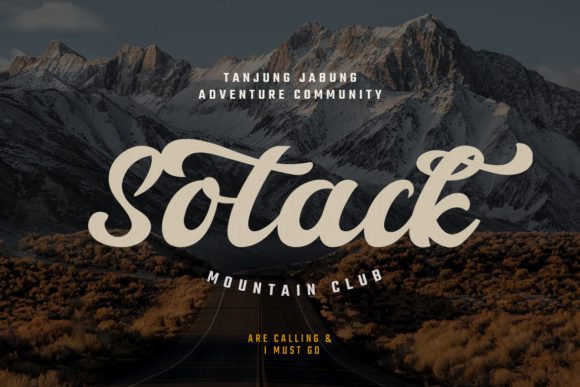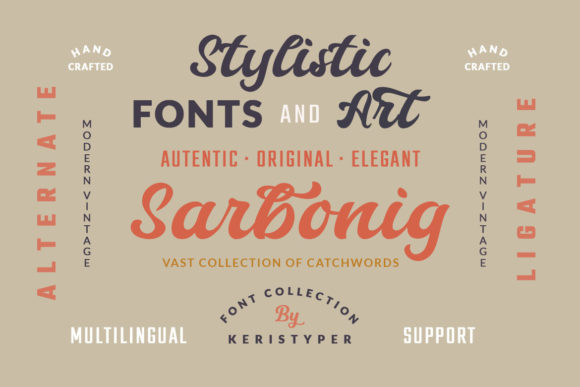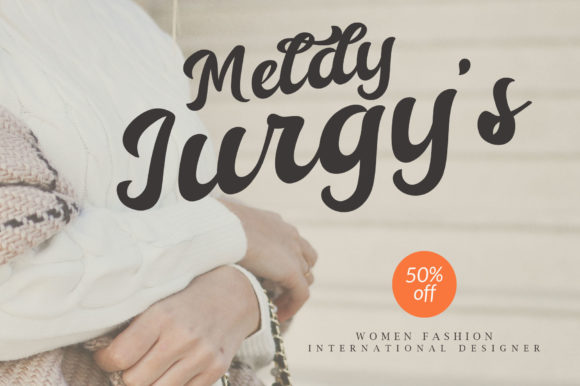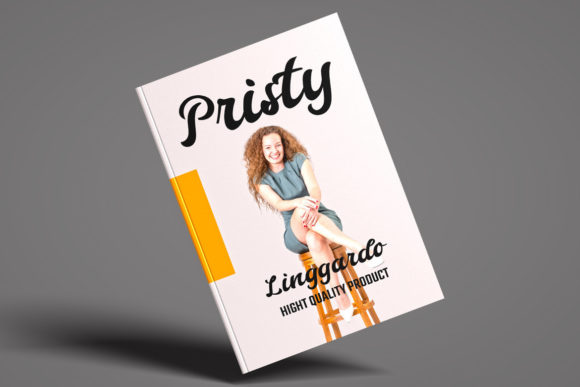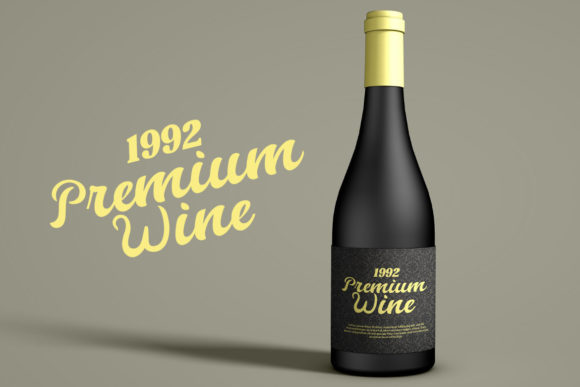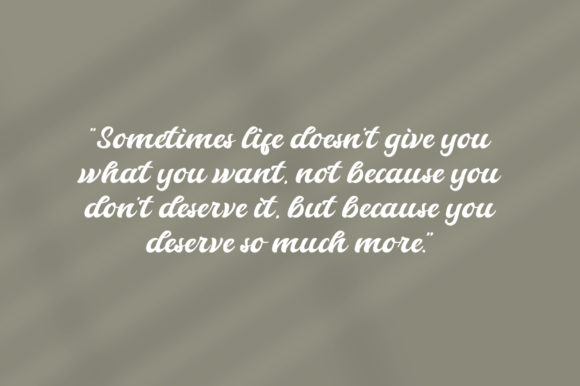
Introduction to Mostyle Font
Have you ever stumbled upon an old photograph, and suddenly, a wave of nostalgia washes over you? The soft focus, the faded colors, and the elegant typography all combine to transport you to a bygone era. This is exactly the kind of creative moment that the Mostyle Font is designed to evoke.
As a designer, you’re constantly on the lookout for high-quality design resources that can elevate your creative project and make it stand out. The Mostyle Font is a stunning addition to any design arsenal, with its retro and gorgeous script style perfect for vintage designs, badges, logos, posters, and more.
Key Features of Mostyle Font
- High-quality, unique font design ideal for creative projects and modern designs.
- Features a transparent background, allowing for seamless integration with custom backgrounds and designs.
- Designed to be highly legible and versatile, making it suitable for a wide range of creative projects.
- Perfect for use in logos, branding, typography, and other design elements where a modern and unique font is required.
Honest Review: Mostyle Font
I recently stumbled upon the Mostyle Font and I must say, it’s been a game-changer for my design projects. As a designer, I’m always on the lookout for high-quality fonts that can elevate my creative work, and Mostyle Font certainly delivers.
Here are some things that work well: ✨
- Its sleek and modern design makes it perfect for minimalist and futuristic projects.
- The font is highly customizable, allowing me to adjust the size, color, and spacing to suit my design needs.
- The font may not be suitable for projects requiring a more traditional or classic look.
Overall, I’m thoroughly impressed with Mostyle Font. Its high quality, versatility, and transparent background make it an excellent addition to any design resource library. I’d highly recommend it for any creative project, especially those with a modern or futuristic theme.
The Mostyle Font is perfect for creating eye-catching headings, titles, and logos. It’s also great for designing brochures, flyers, and other marketing materials.
Tips for Getting the Most Out of Mostyle Font
To get the most out of the Mostyle Font, experiment with different font sizes, styles, and combinations. Use it in conjunction with other design elements to create a visually appealing design.